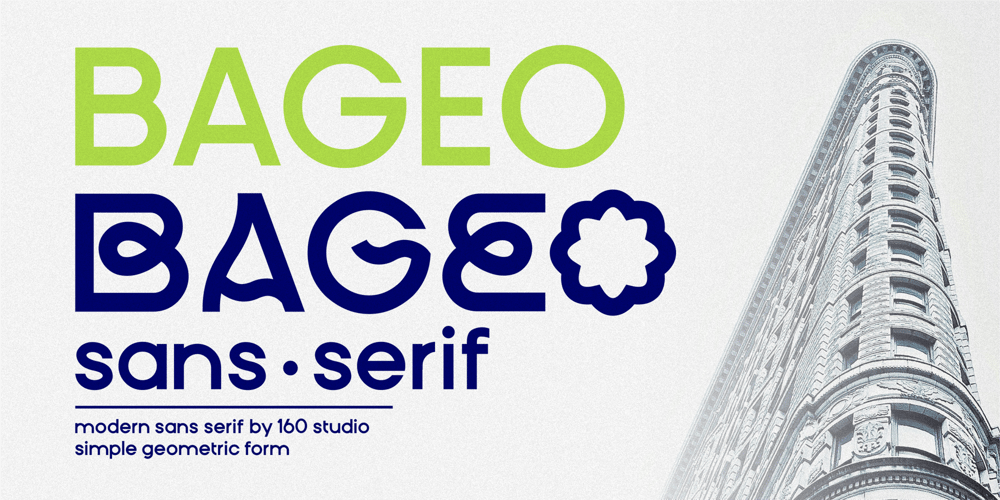
Bageo Font Family was designed by Supar Wanto and published by 160 Std. Bageo contains 1 styles and family package options. Bageo is a versatile font with it’s clean and sleek build. geometric lowercase emphasize the modern and clean feel. The overall typeface is geometric to bring order and alignment in between the letters It is best used as logo, headline, and title.